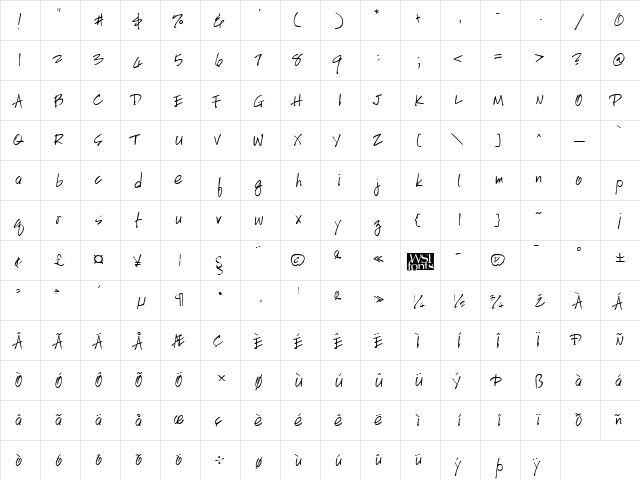
HandScriptUpright Regular
Design Context for HandScriptUpright Typeface
HandScriptUpright brings a calligraphic fluidity to the page — its connecting strokes and expressive curves give it an unmistakably human quality.
Font Pairing: Combine HandScriptUpright with a simple geometric sans for maximum contrast — the tension between flowing curves and clean structure is a classic typographic pairing.
Pro Tip: Pair HandScriptUpright with a clean sans-serif for supporting text. The contrast between fluid script and geometric structure creates an elegant typographic hierarchy.